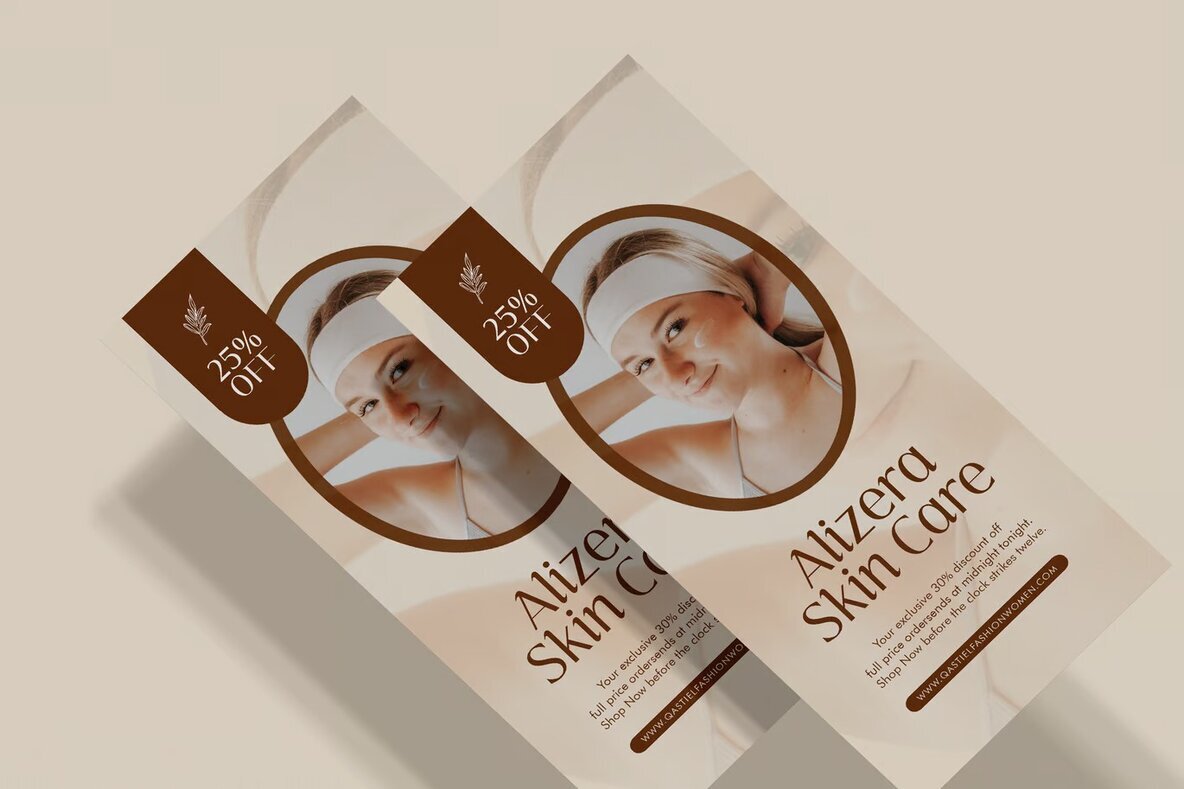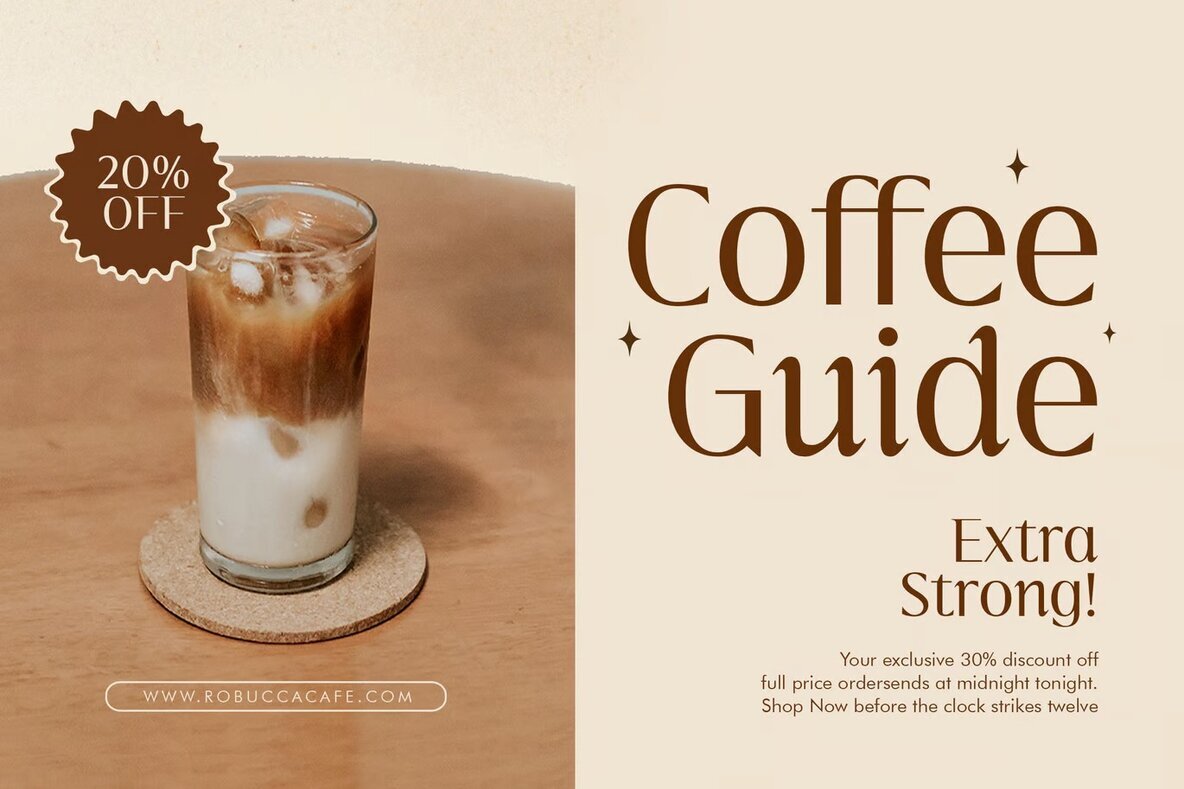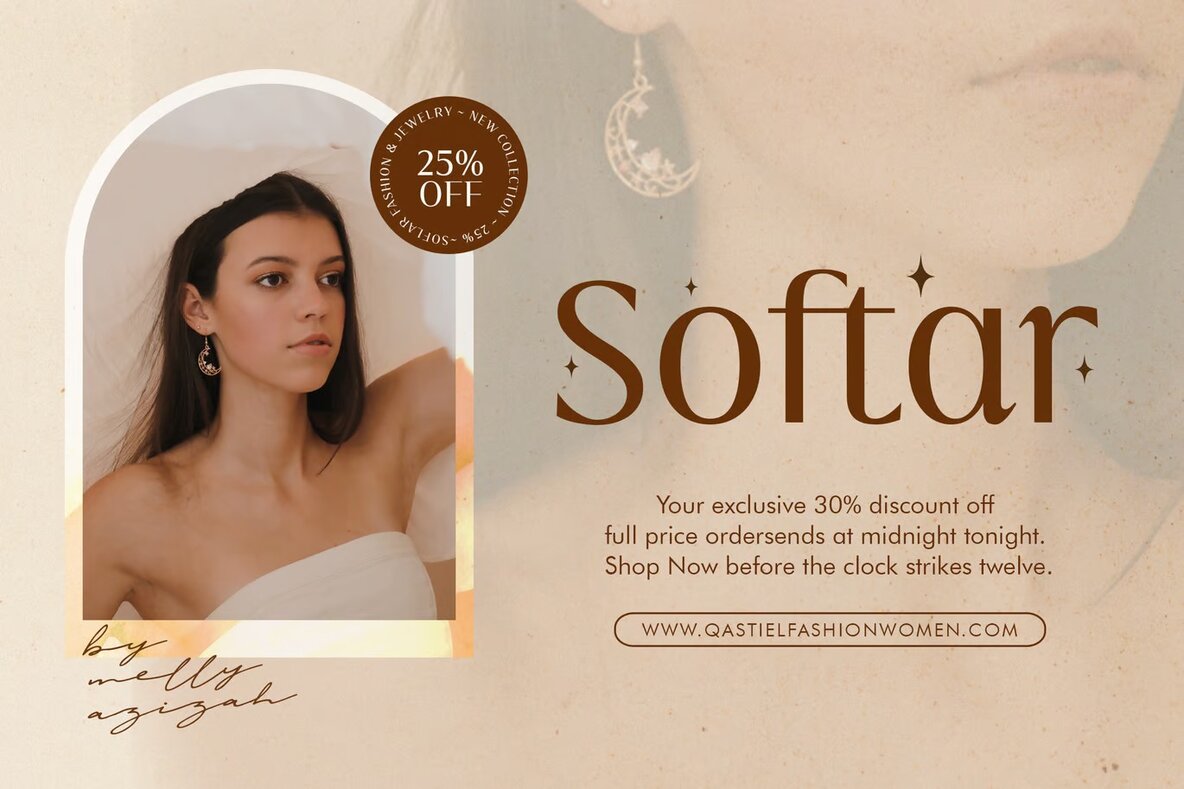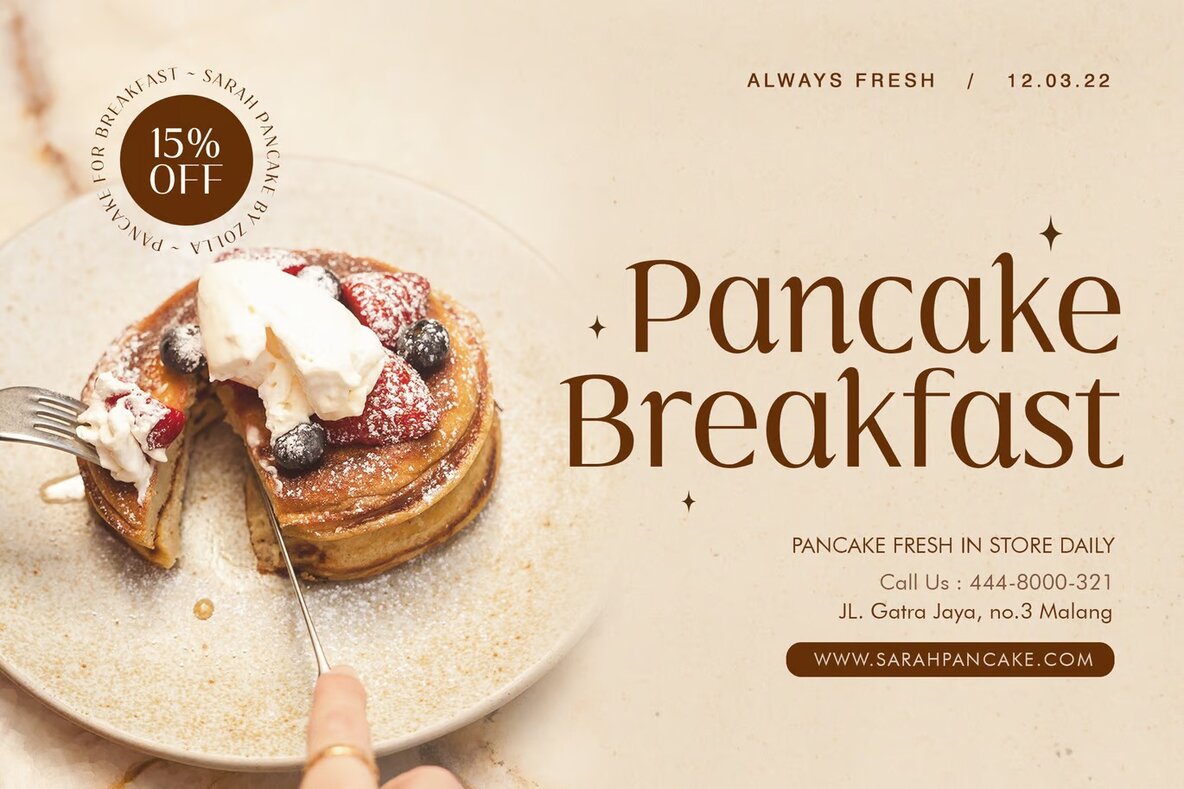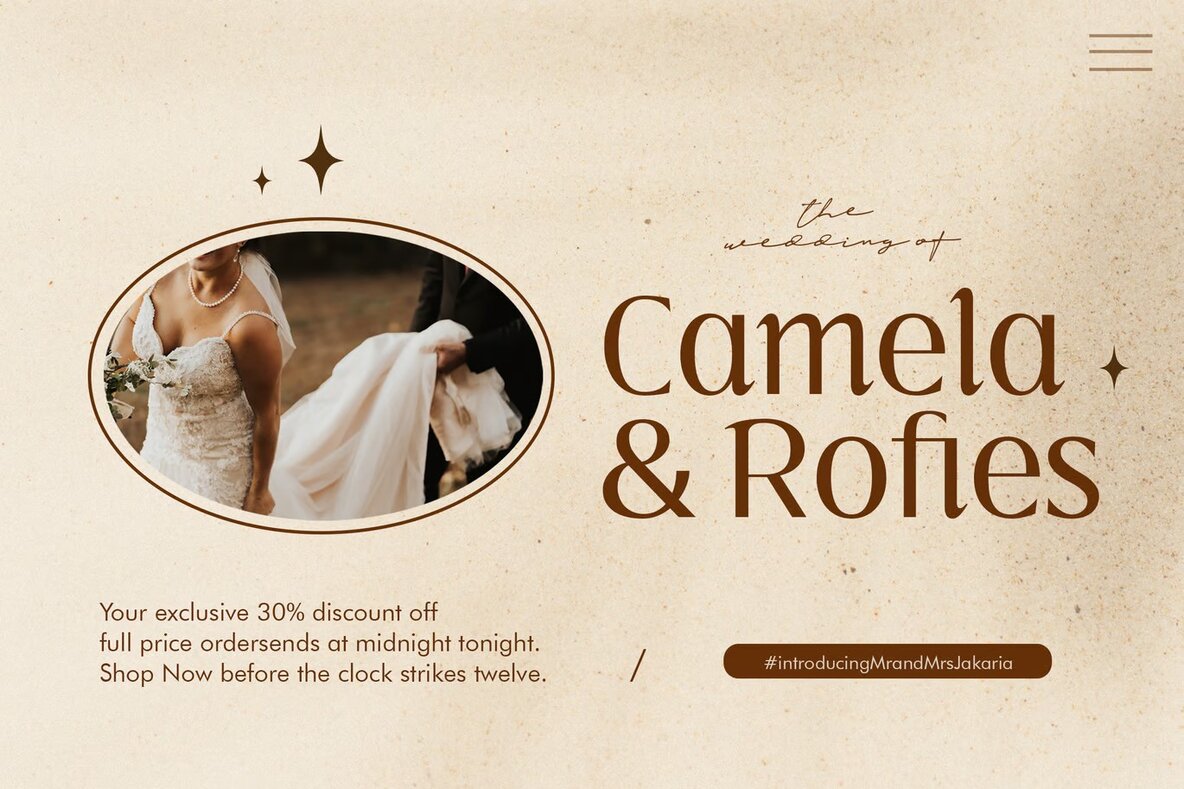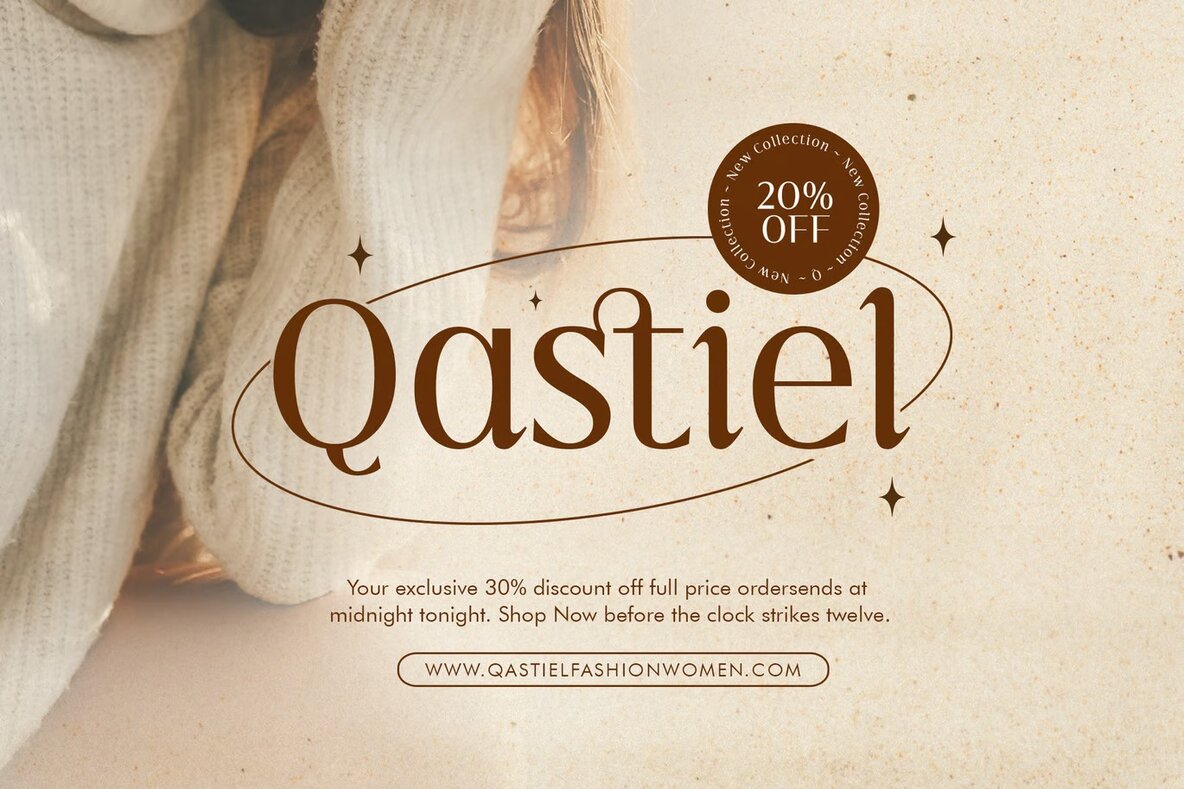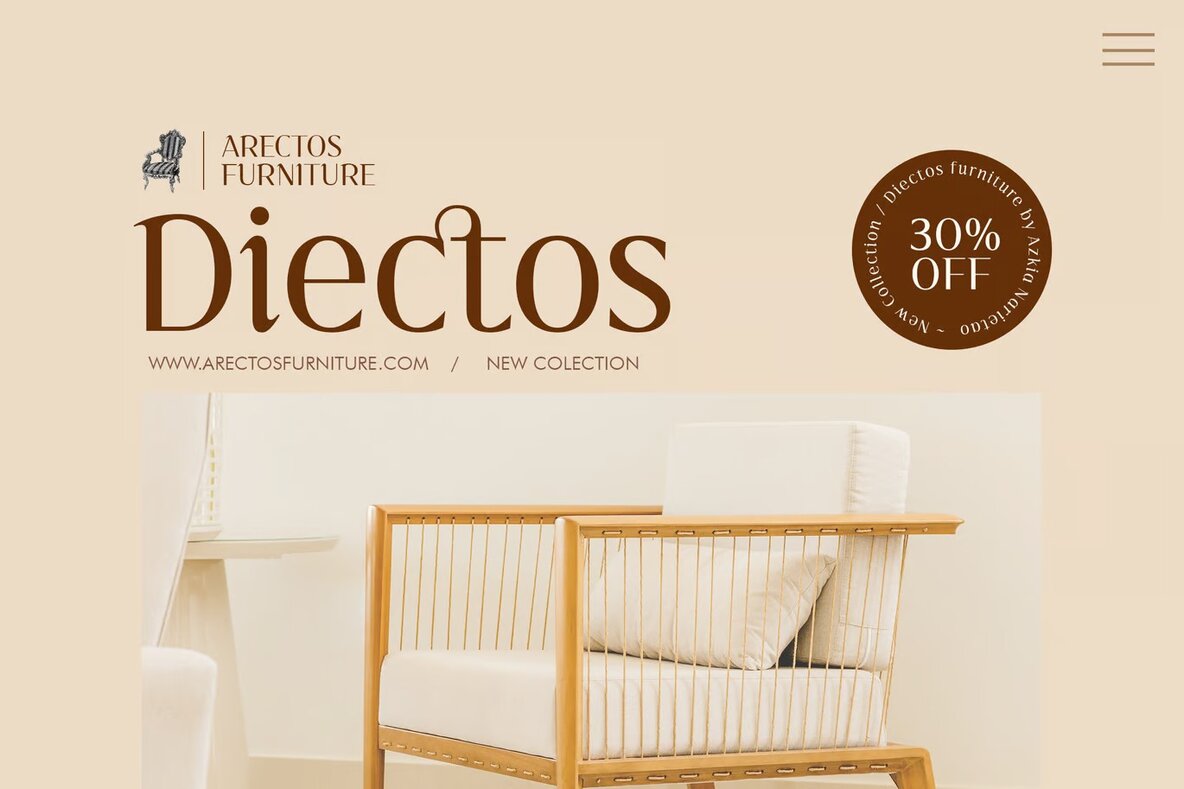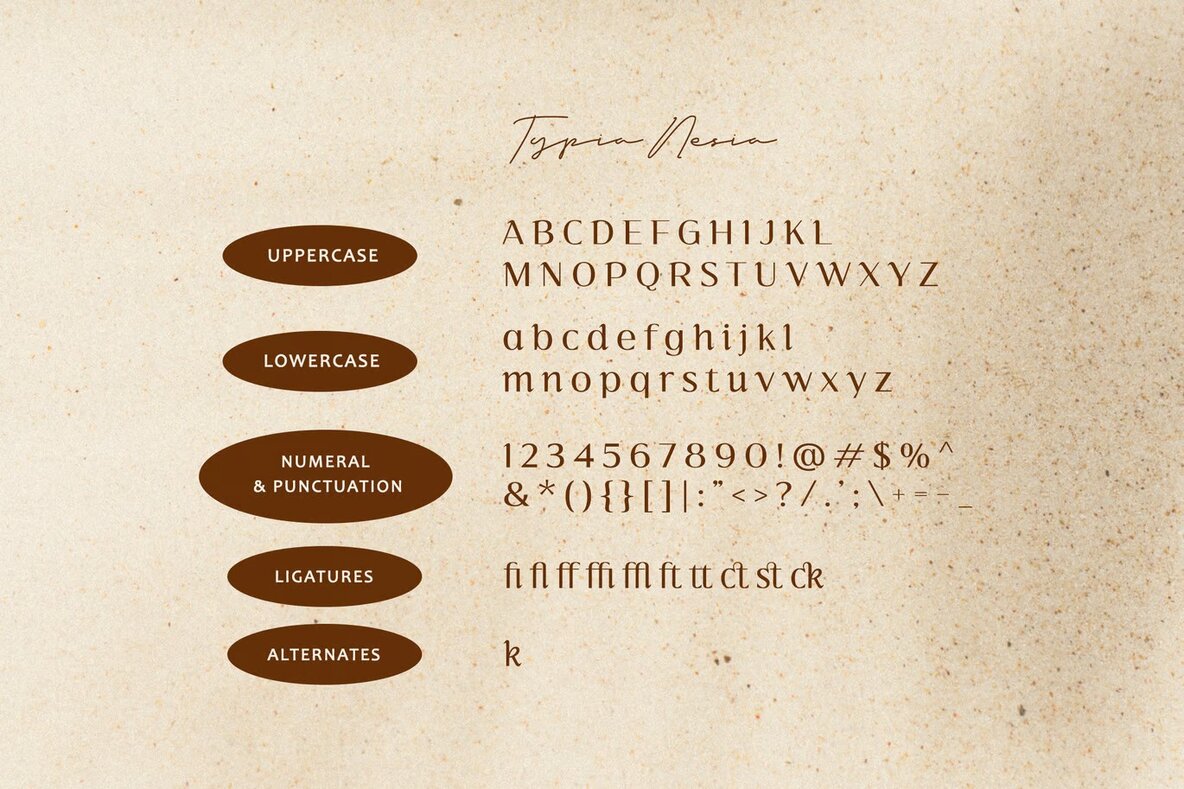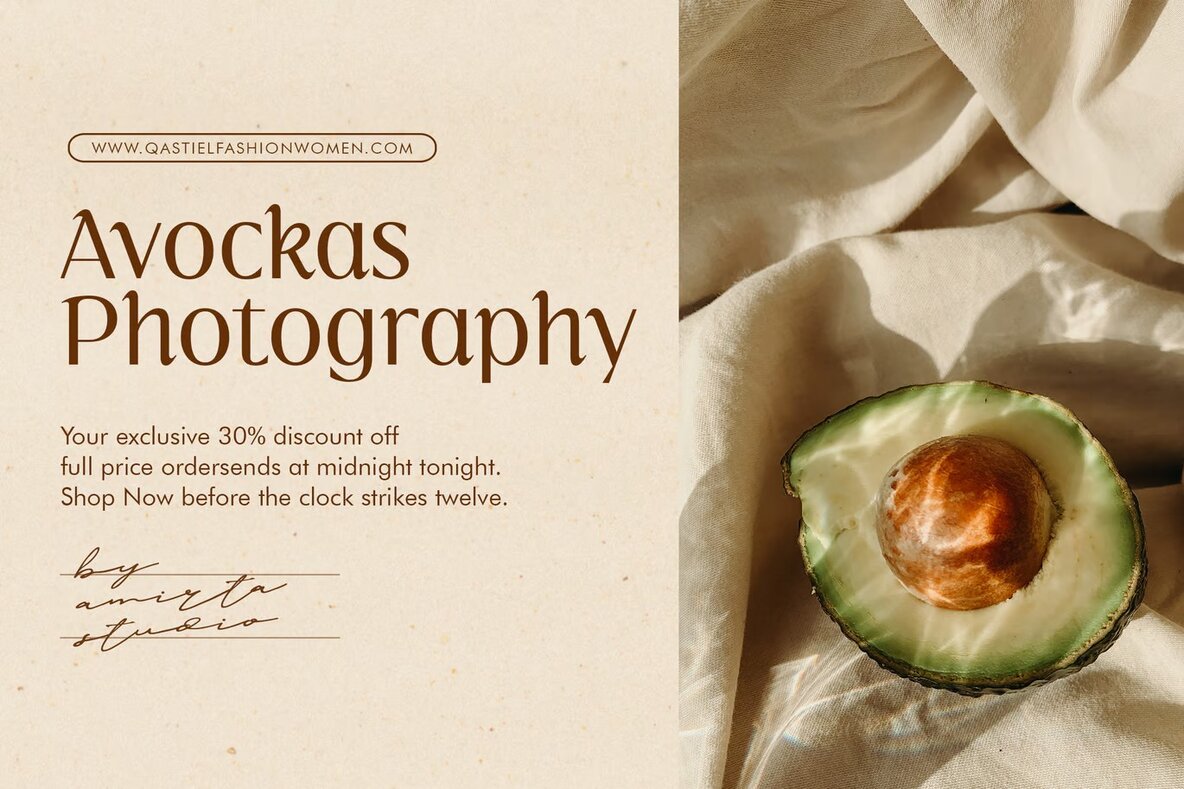
Milk and Slick Font
Milk and Slick Regular
Milk and Slick is a vintage, elegant luxury sans-serif font perfect for your upcoming projects. Its modern and fancy style makes it ideal for luxury logo and branding, classy editorial designs, women's magazines, and cosmetic brands. Enhance your fashion promotions, art gallery branding, museum projects, and boutique branding with this sophisticated typeface. It's also great for stationery designs, blog layouts, modern advertising campaigns, card invitations, and art quotes.
Use Milk and Slick for home decor, book covers, and special event designs to add a touch of elegance. This versatile font elevates any project with its timeless appeal, ensuring a polished and refined look. Perfect for those seeking a beautiful, high-end typeface for both personal and professional use.